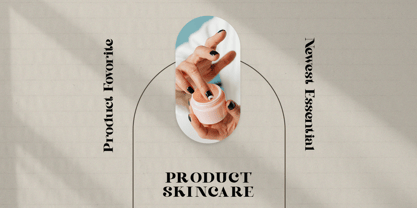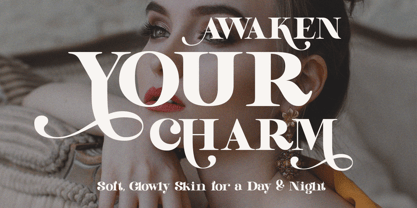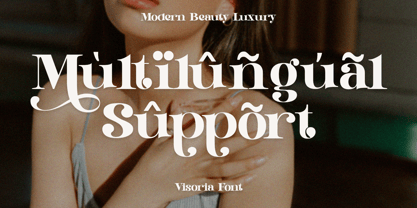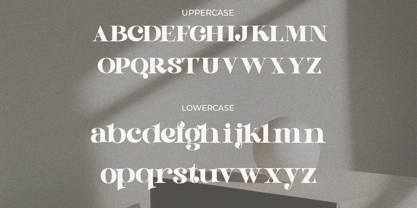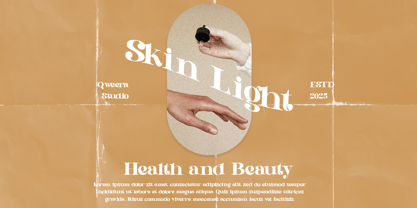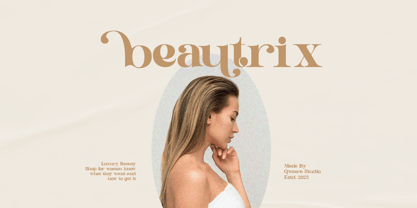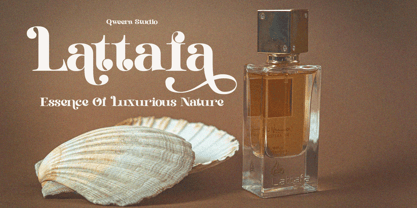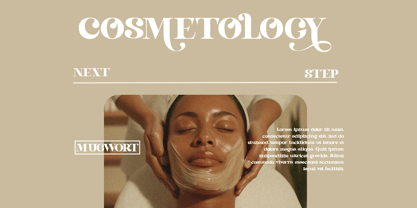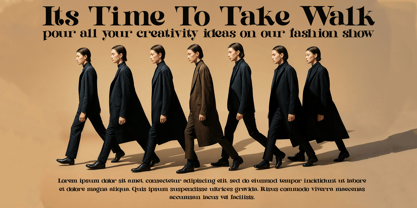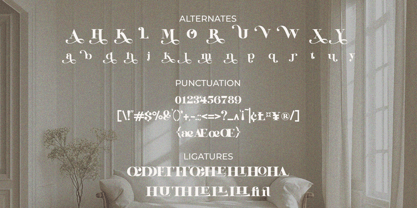
Visoria
The Visoria Font Family was designed by Idhham Cholid Rikzano Yahya and published by Qweera Studio. Visoria contains 2 styles and family package options. More about this family
Visoria is a modern elegant serif font with stylish alternates and ligatures, providing ultimate design flexibility. Perfect for branding, posters, magazines, and print projects, this typeface brings sophistication and timeless beauty to any creation. Ideal for designers seeking a luxurious and refined aesthetic.
• Opentype features ( ligature, alternate )